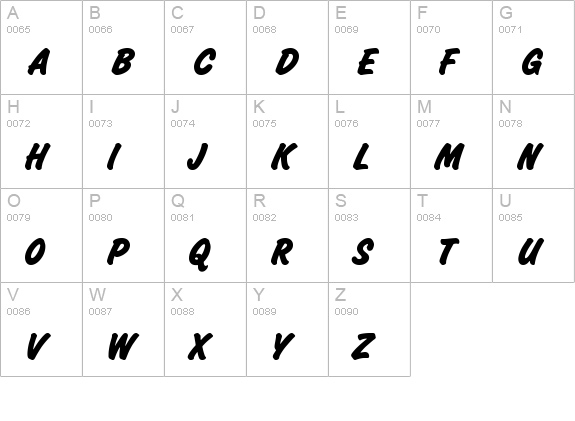
ChallengeEF-ExtraBold Font Details
ChallengeEF-ExtraBold is an extra-heavy, attention-grabbing variant in the ChallengeEF typeface family \xE2\x80\x94 well suited to high-impact headlines, posters, and bold branding.
ChallengeEF-ExtraBold is a striking and powerful font that commands attention with its bold and impactful presence. Its strong and distinct letterforms exude confidence and make a statement in any design project. Whether used for headlines, posters, or branding materials, ChallengeEF-ExtraBold demands to be noticed. The font's extra bold weight gives it a modern and dynamic edge, making it perfect for projects that require a strong visual impact. Its sleek and sophisticated design ensures readability and legibility, even at large sizes. ChallengeEF-ExtraBold is a versatile font that can be used for a wide range of purposes, from editorial design to advertising. Best of all, ChallengeEF-ExtraBold is available for free download at FontsMarket.com. This means that you can easily add this powerful font to your collection without any cost. Don't miss out on the opportunity to enhance your designs with the impactful style of ChallengeEF-ExtraBold. Download it now and see the difference it can make in your projects.